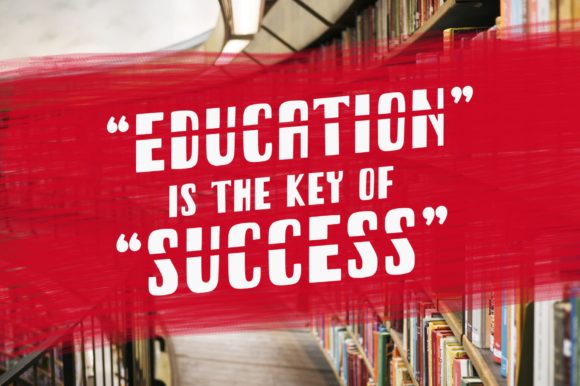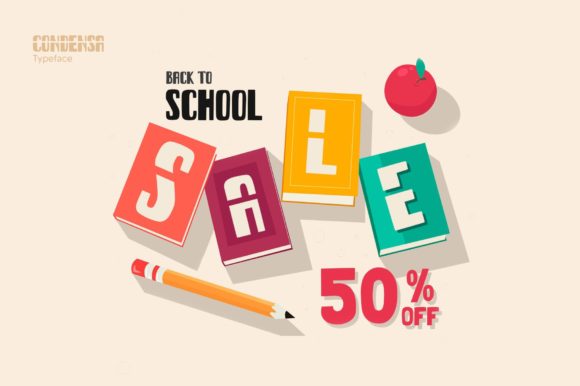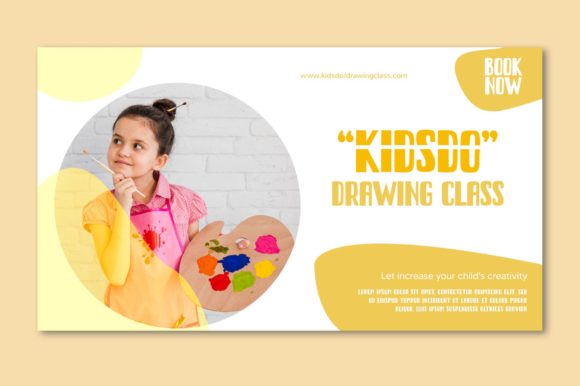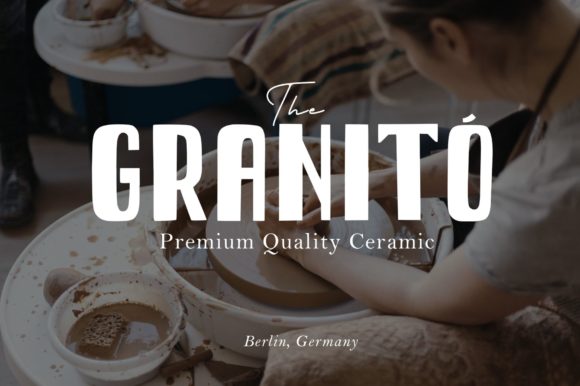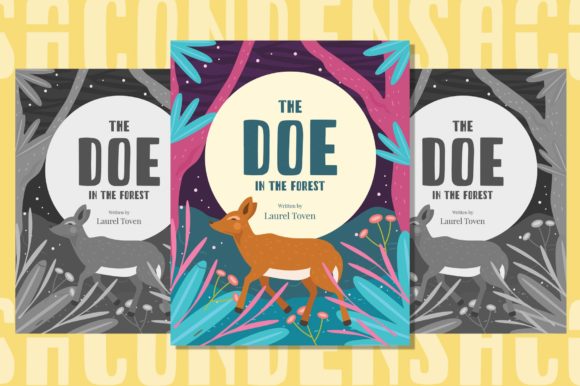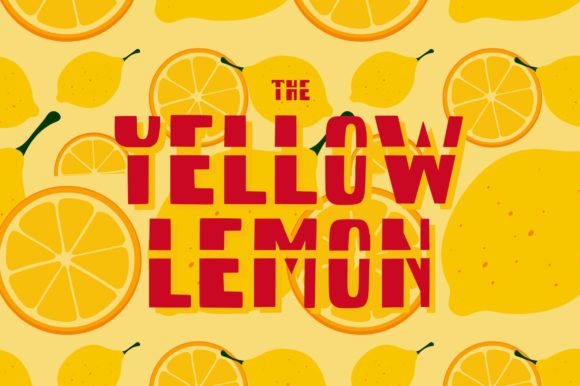
Introducing Condensa Font: The Ultimate Choice for Fun and Minimalist Designs
Are you a designer or crafter looking for the perfect font to add a touch of fun and minimalism to your designs? Look no further than Condensa Font! This adorable font is specifically designed to bring a playful and modern twist to your projects, making it an ideal choice for a wide range of applications.
What Makes Condensa Font So Special?
Condensa Font is a unique and versatile font that is equipped with common characters, making it suitable for various design projects. The main font file is carefully crafted with a cute brush, giving it a distinctive and charming look. The font’s design is characterized by its clean lines, simple shapes, and a dash of playfulness, making it perfect for creating fun and minimalist designs.
Condensa Font is an excellent choice for various design projects, including:
- Branding: Create a lasting impression with your brand’s identity using Condensa Font. Its unique and playful design makes it perfect for logos, business cards, and letterheads.
- Product Packaging: Add a touch of fun and modernity to your product packaging with Condensa Font. It’s ideal for labels, tags, and packaging materials.
- Invitations: Make your invitations stand out with Condensa Font. Its cute and playful design is perfect for wedding invitations, birthday parties, and other celebrations.
- Quotes: Add a touch of inspiration to your quotes with Condensa Font. Its clean and simple design makes it perfect for social media posts, posters, and flyers.
- T-Shirts: Create fun and stylish t-shirts with Condensa Font. Its bold and playful design makes it perfect for casual wear.
- Labels: Use Condensa Font to create custom labels for your products or gifts. Its cute and modern design makes it perfect for any occasion.
- Posters: Create eye-catching posters with Condensa Font. Its bold and playful design makes it perfect for advertising, events, and promotions.
- Logos: Create a unique and memorable logo with Condensa Font. Its clean and simple design makes it perfect for any business or brand.
Why Choose Condensa Font?
There are many reasons why Condensa Font stands out from the rest:
- Unique Design: Condensa Font has a distinctive and charming look that sets it apart from other fonts.
- Versatility: Condensa Font is suitable for a wide range of design projects, from branding to product packaging.
- Easy to Read: Condensa Font is clean and simple, making it easy to read and understand.
- Fun and Playful: Condensa Font adds a touch of fun and playfulness to any design project.
Condensa Font is the perfect choice for designers and crafters looking for a fun and minimalist font to add a touch of modernity to their designs. Its unique design, versatility, and ease of use make it an ideal choice for a wide range of design projects. Whether you’re creating branding materials, product packaging, or social media posts, Condensa Font is sure to make your designs stand out.